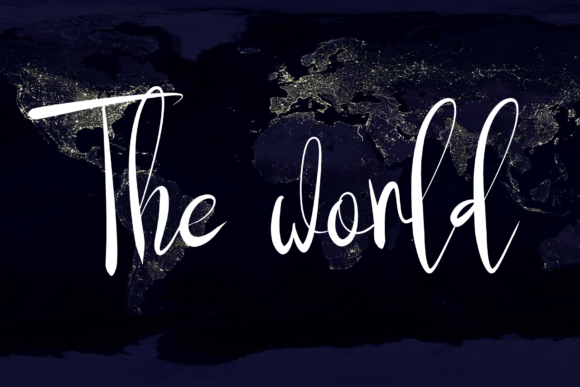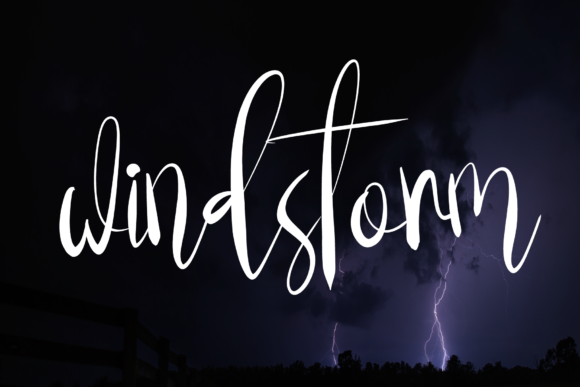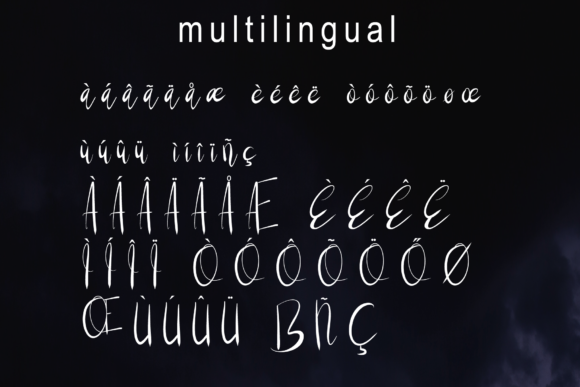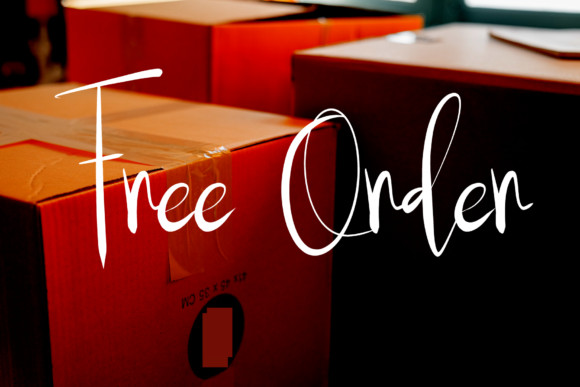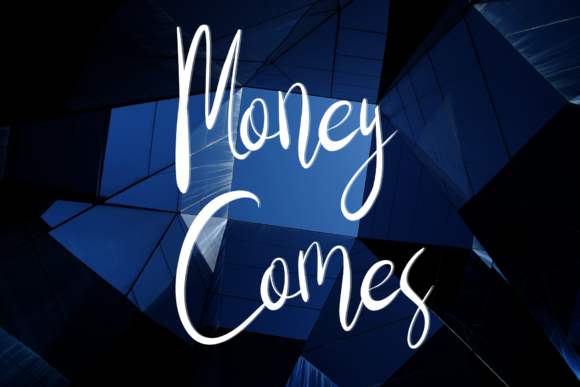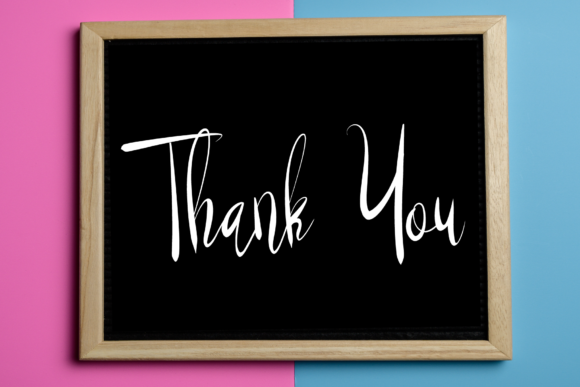
Introduction to Redsea Font
Have you ever found yourself in a creative moment where you’re struggling to find the perfect font to bring your project to life? The cursor blinks on your screen, and you’re about to give up, but then, like a breath of fresh air, you stumble upon a design resource that makes your heart skip a beat. For me, that moment came when I discovered the stunning Redsea Font.
With its elegant and delicate letters, the Redsea Font is a game-changer for any creative project that requires unique and exquisite typography. Whether you’re working on a branding project, a blog post, or a social media campaign, this high-quality font is sure to make your design stand out. And the best part? It’s available for a free download, making it an accessible design resource for designers of all levels.
Key Features of Redsea Font
- High-quality, professional design perfect for creative projects
- Transparent background allowing for seamless integration into designs
- Supports a wide range of languages and characters for global design use
- Features a clean, modern aesthetic ideal for contemporary design projects
Honest Review: Redsea Font
I recently stumbled upon the Redsea Font and was excited to give it a try. As a designer, I’m always on the lookout for high-quality design resources to elevate my creative projects. The Redsea Font definitely delivers.
- ✨ High-quality font with a unique, modern design
- ✨ Excellent for use as a header or title font
- ✨ Compatible with most design software and operating systems
- ⚠️ Limited character set, which may not be suitable for extensive text-based projects
- ⚠️ Not ideal for use with transparent backgrounds, as the font’s design may not hold up well
Overall, I’m impressed with the Redsea Font’s unique design and high-quality construction. While it may have some limitations, it’s a great resource for designers looking to add a touch of modernity to their creative projects. With careful consideration of its limitations, the Redsea Font can be a valuable addition to any design toolkit.
How to Use Redsea Font
Introduction to Redsea Font
The Redsea Font is a high-quality design resource ideal for creative projects. It features a transparent background, making it versatile for various applications.
Tips for Getting the Most Out of Redsea Font
To maximize the use of Redsea Font, experiment with different font sizes, colors, and combinations. This will help you achieve a unique and captivating design.
The Redsea Font is ideal for a variety of creative projects, including:
- Web design and e-books
Alternatives to Redsea Font
The Great Vibes Font is a modern, elegant script font ideal for creative projects that require a touch of sophistication. It’s perfect for wedding invitations, greeting cards, and other design elements where a high-quality, cursive font is needed. Great Vibes Font is a free download and can be used with a transparent background, making it easy to integrate into any design resource.
Compared to Redsea Font, Great Vibes Font has a more refined and sophisticated look, making it suitable for more formal designs. While Redsea Font is great for casual, playful projects, Great Vibes Font excels in creating a sense of elegance and sophistication.
The Alex Brush Font is a beautiful, handwritten font that’s perfect for adding a personal touch to any design project. It’s great for creative projects that require a high-quality, unique font with a lot of character. Alex Brush Font is a free download and can be used with a transparent background, making it easy to integrate into any design resource.
Compared to Redsea Font, Alex Brush Font has a more organic and handwritten feel, making it suitable for projects that require a more personal touch. While Redsea Font is great for casual, playful designs, Alex Brush Font excels in creating a sense of warmth and personality.
Can I use the Redsea Font with a transparent background?
Yes, the Redsea Font supports transparent backgrounds, making it perfect for designing graphics and logos with a subtle look. You can use the font with a transparent background in various design applications, such as Adobe Photoshop and Illustrator, to create stunning visual effects.